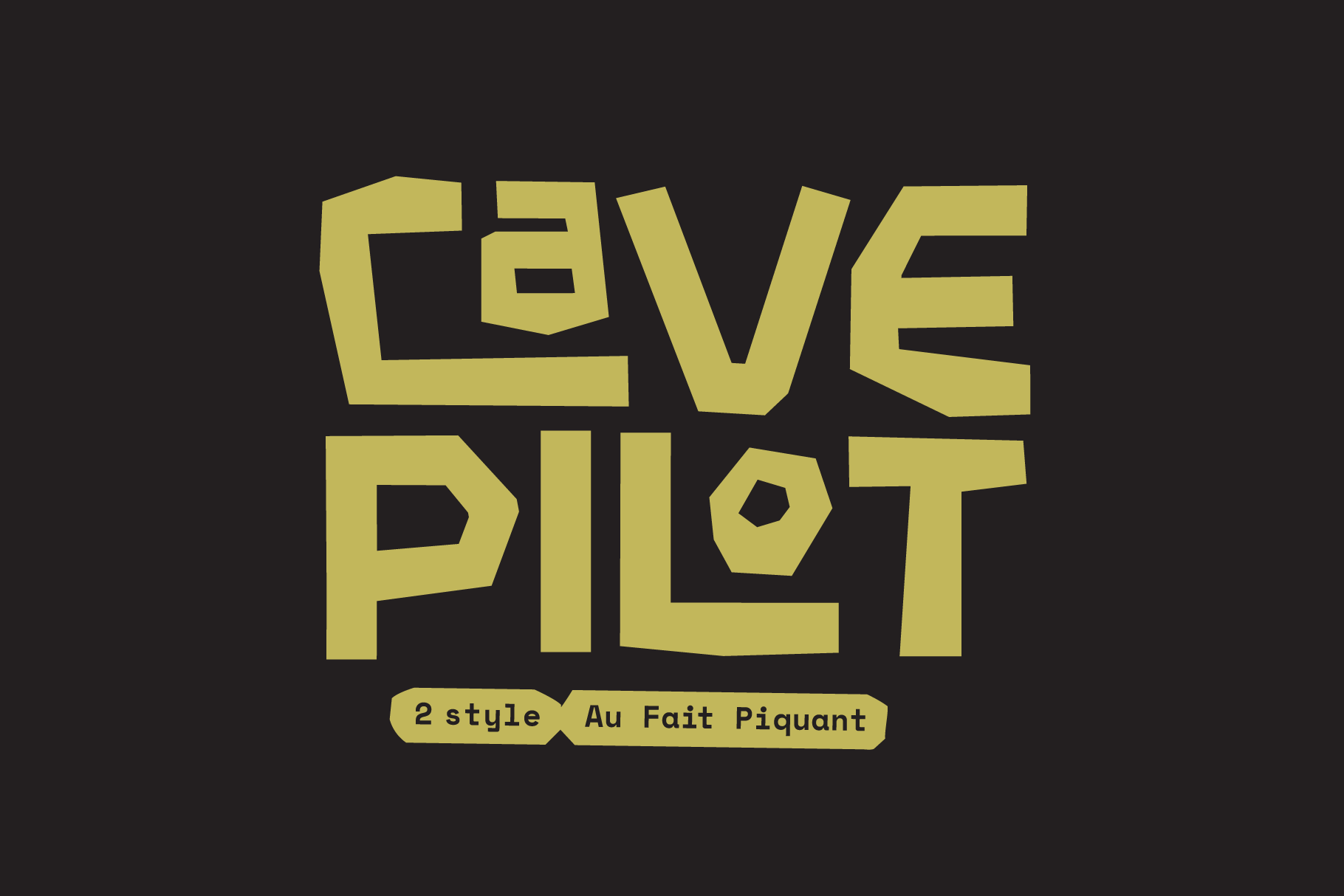
Cave Pilot Font
Cave Pilot is an au fait piquant handwritten typeface apt for headline, editorial, branding, packaging, printed materials and typographic applications. 200+ glyphs including punctuation and numerical.